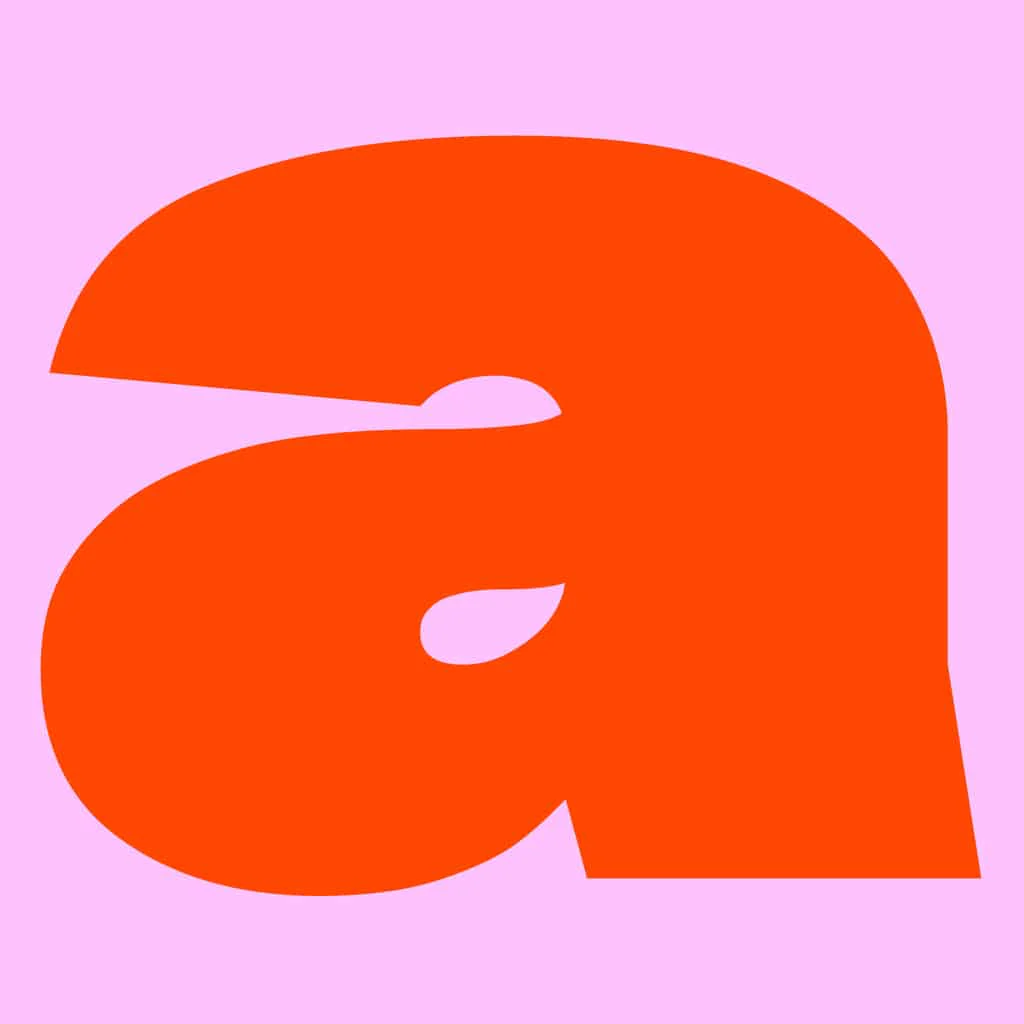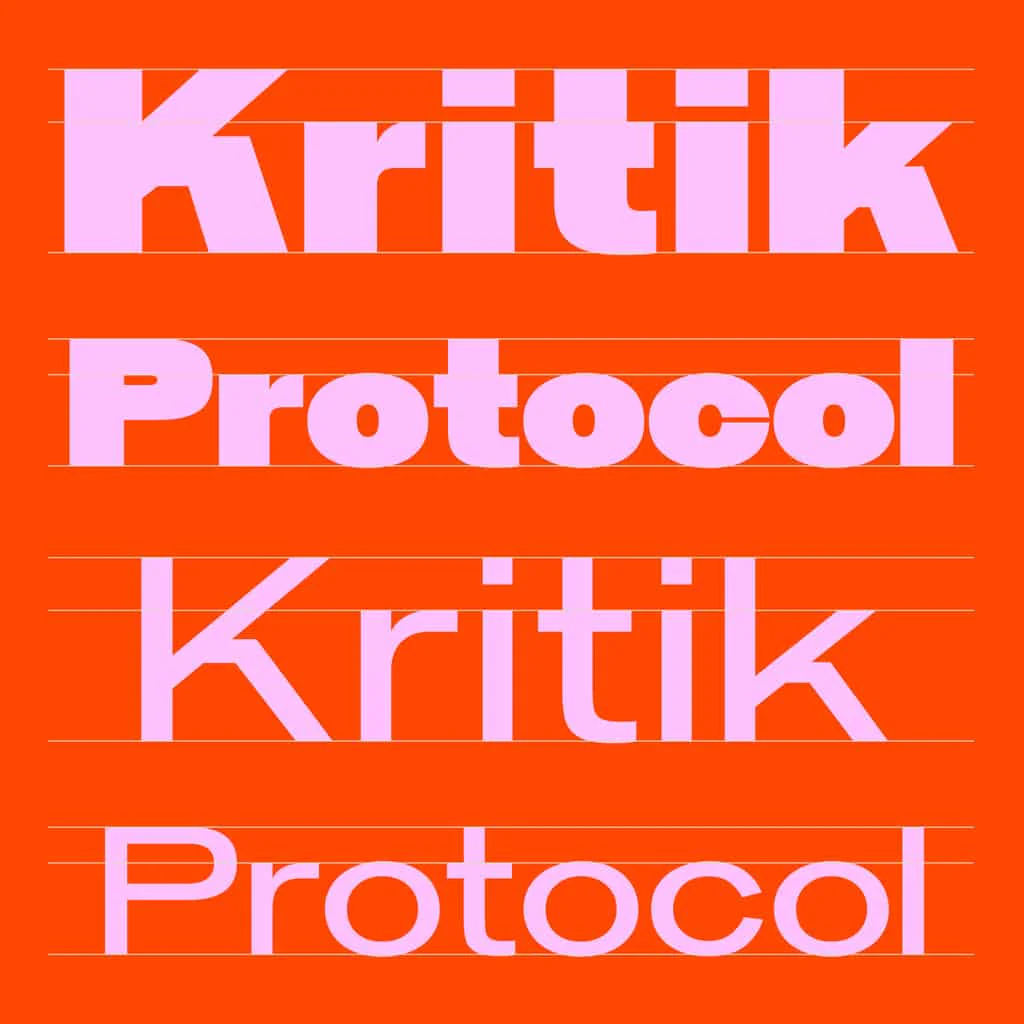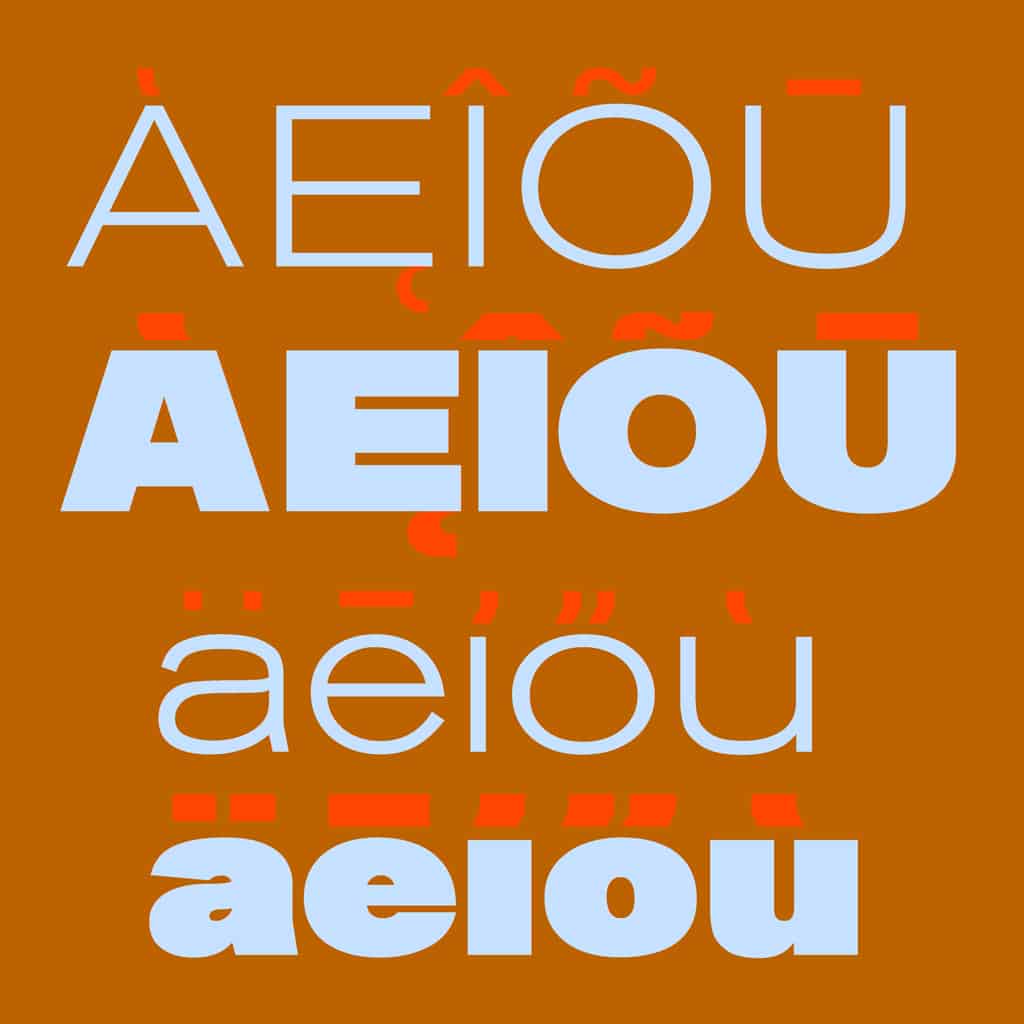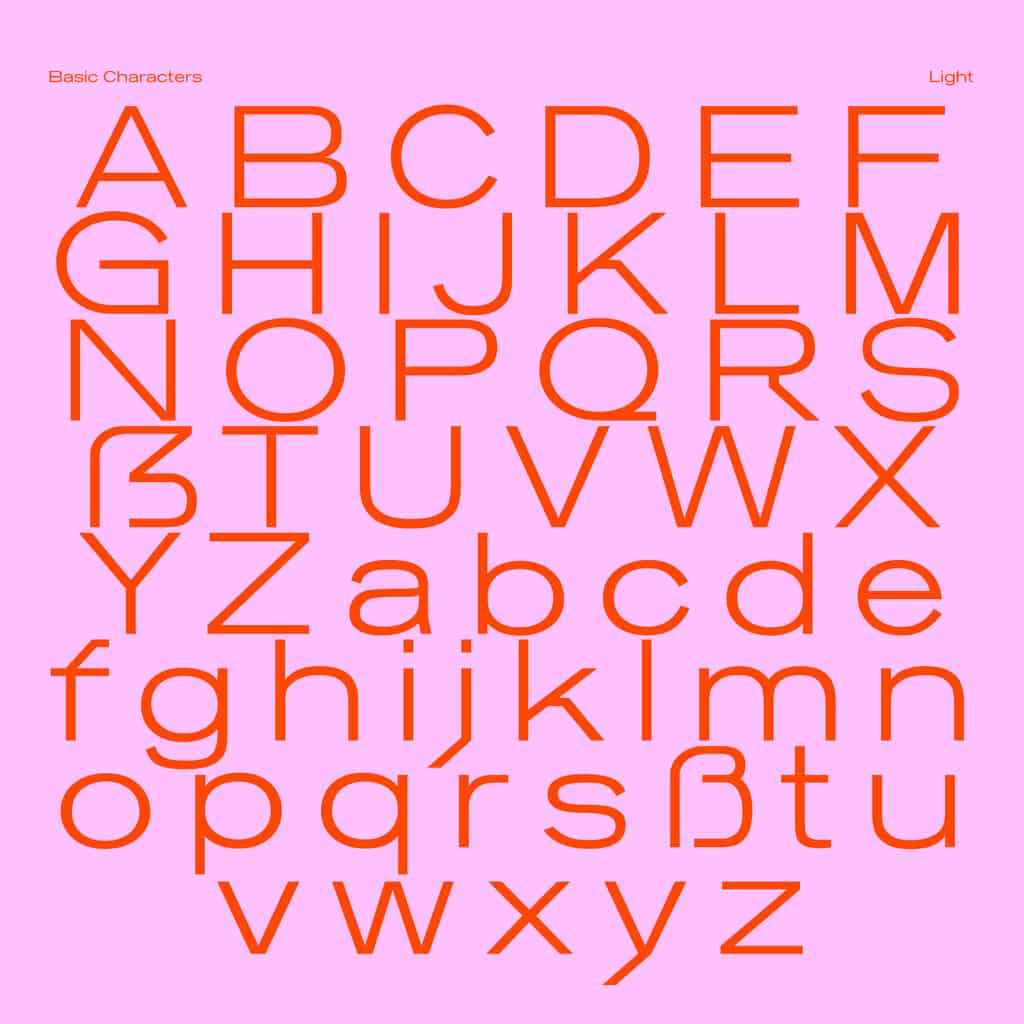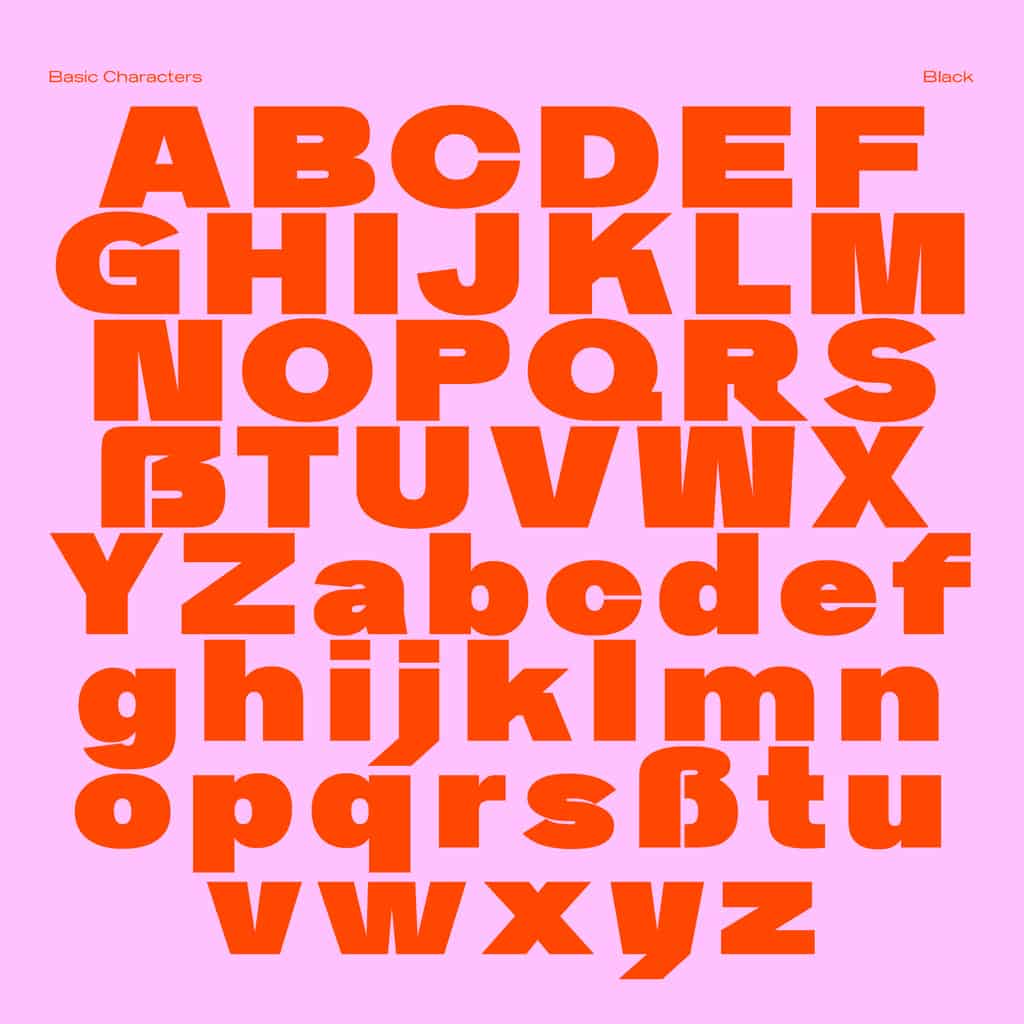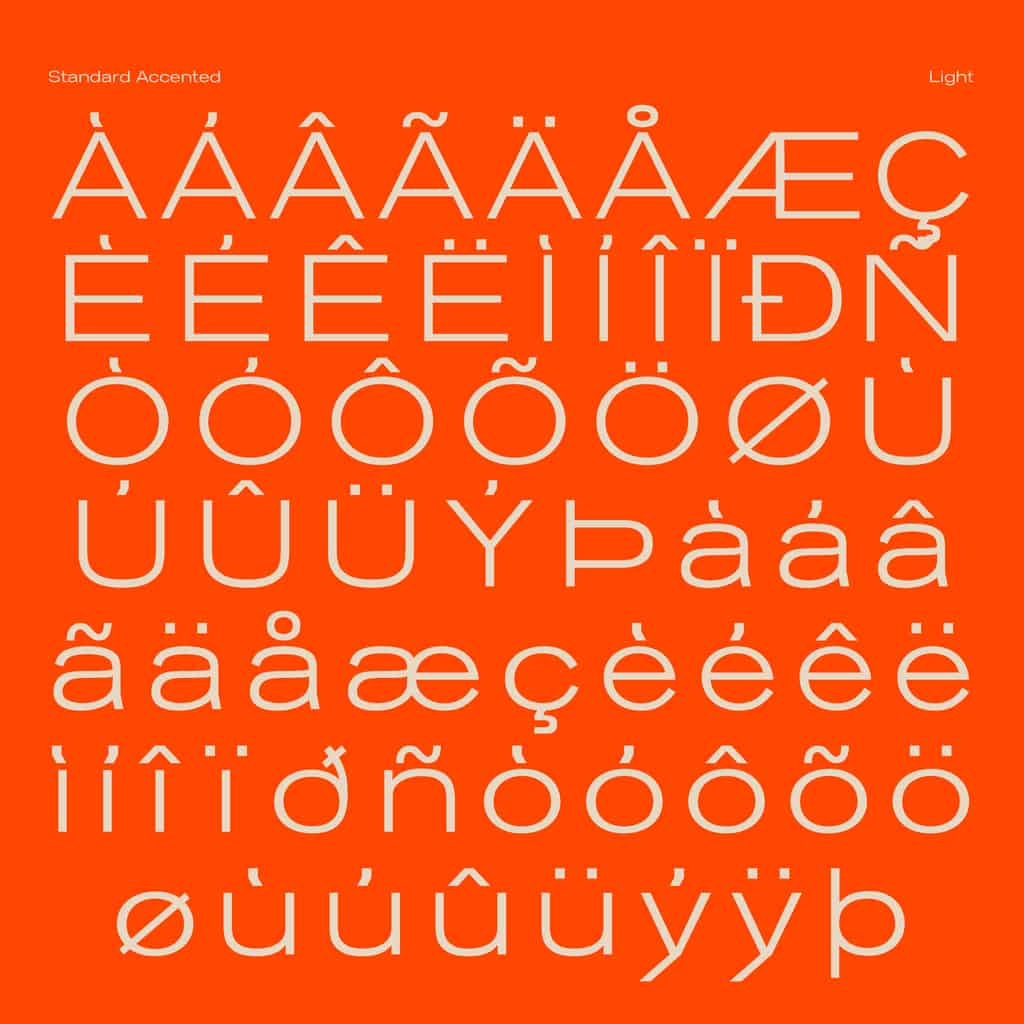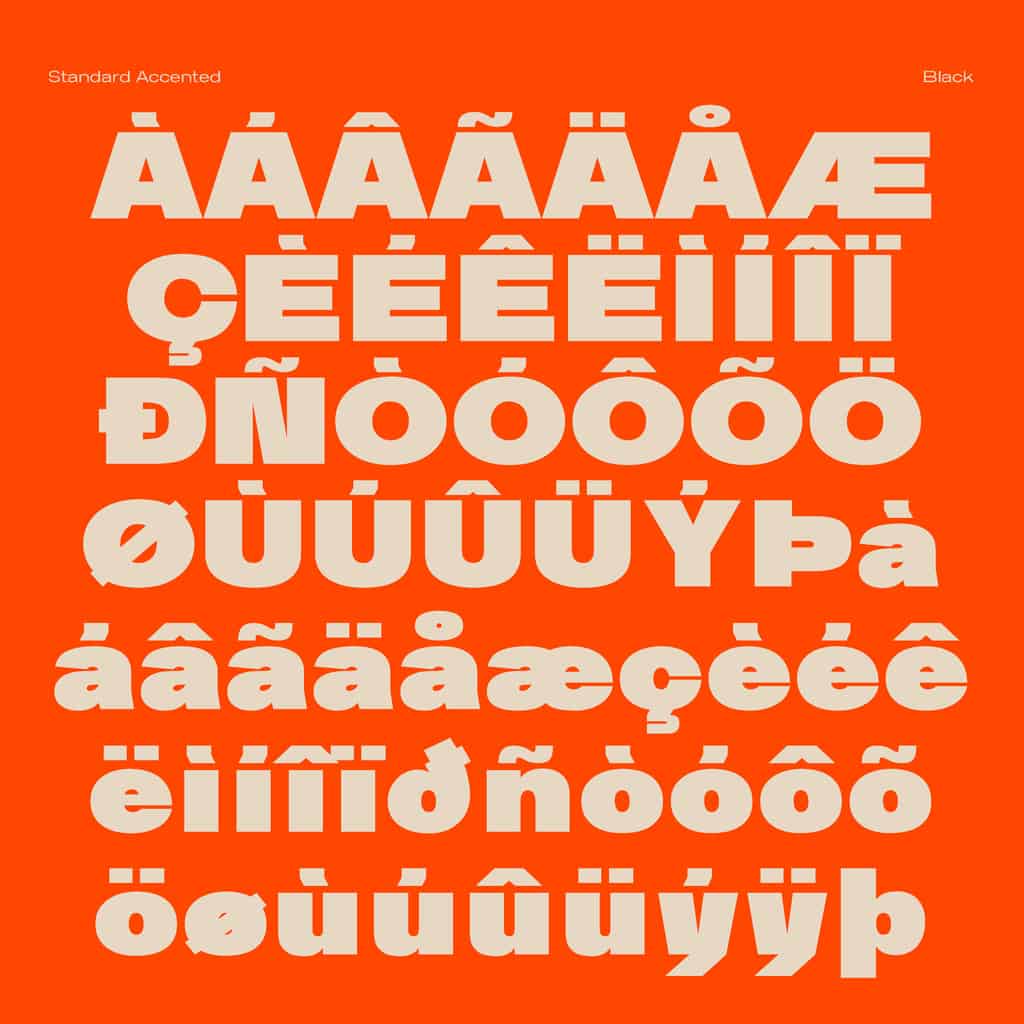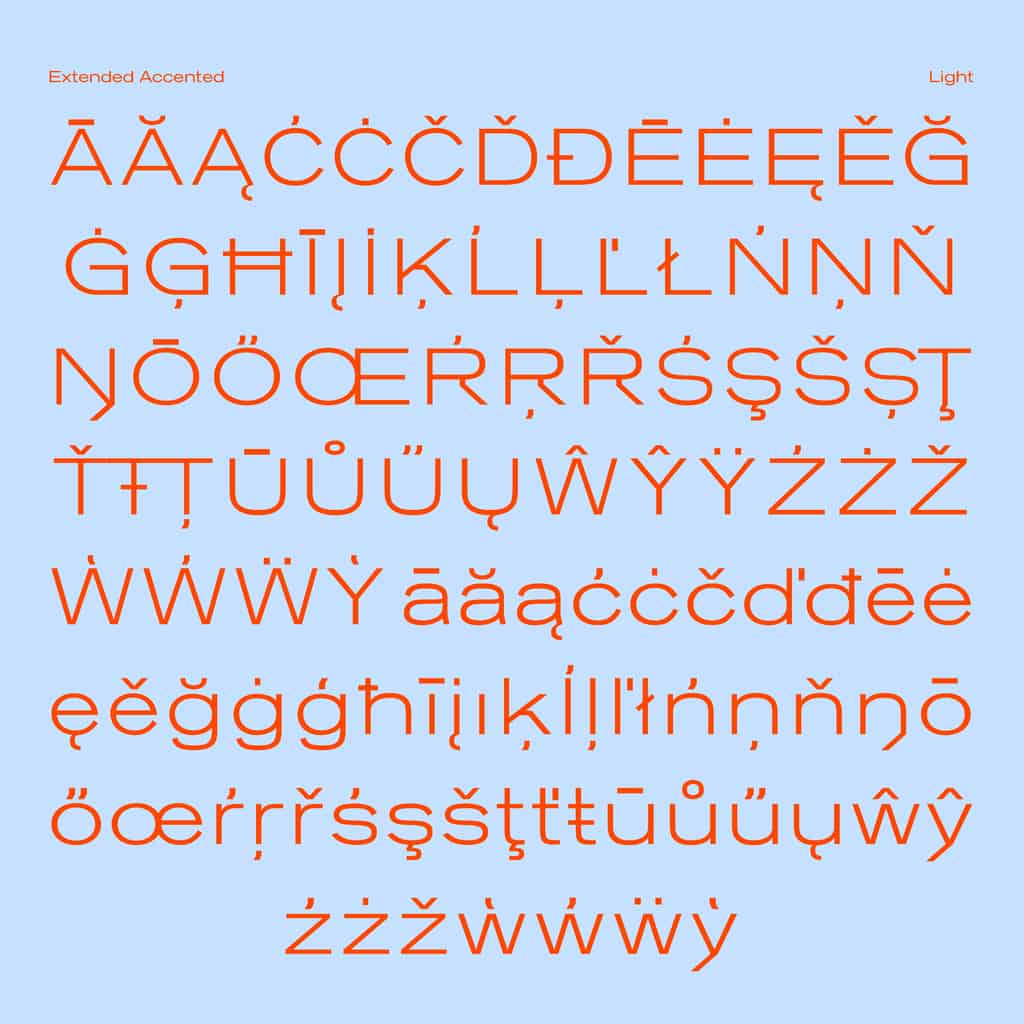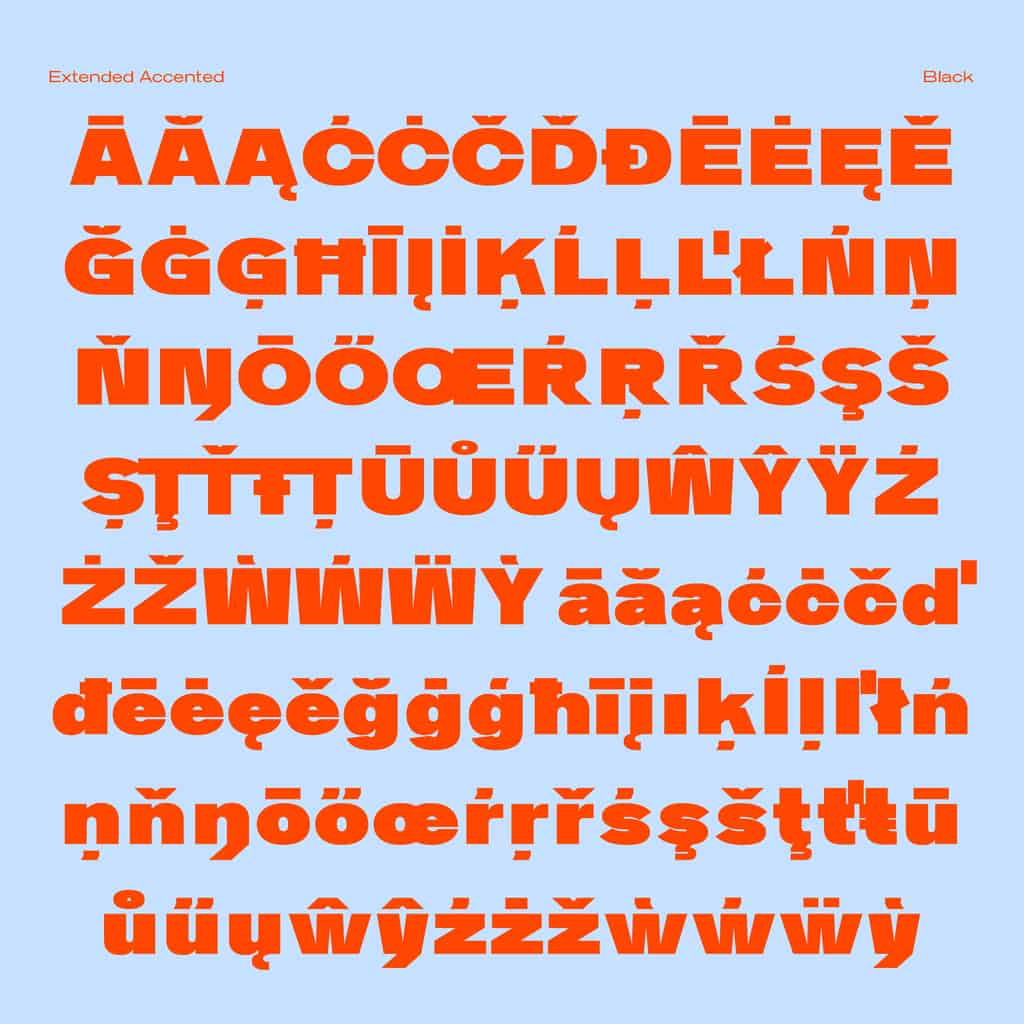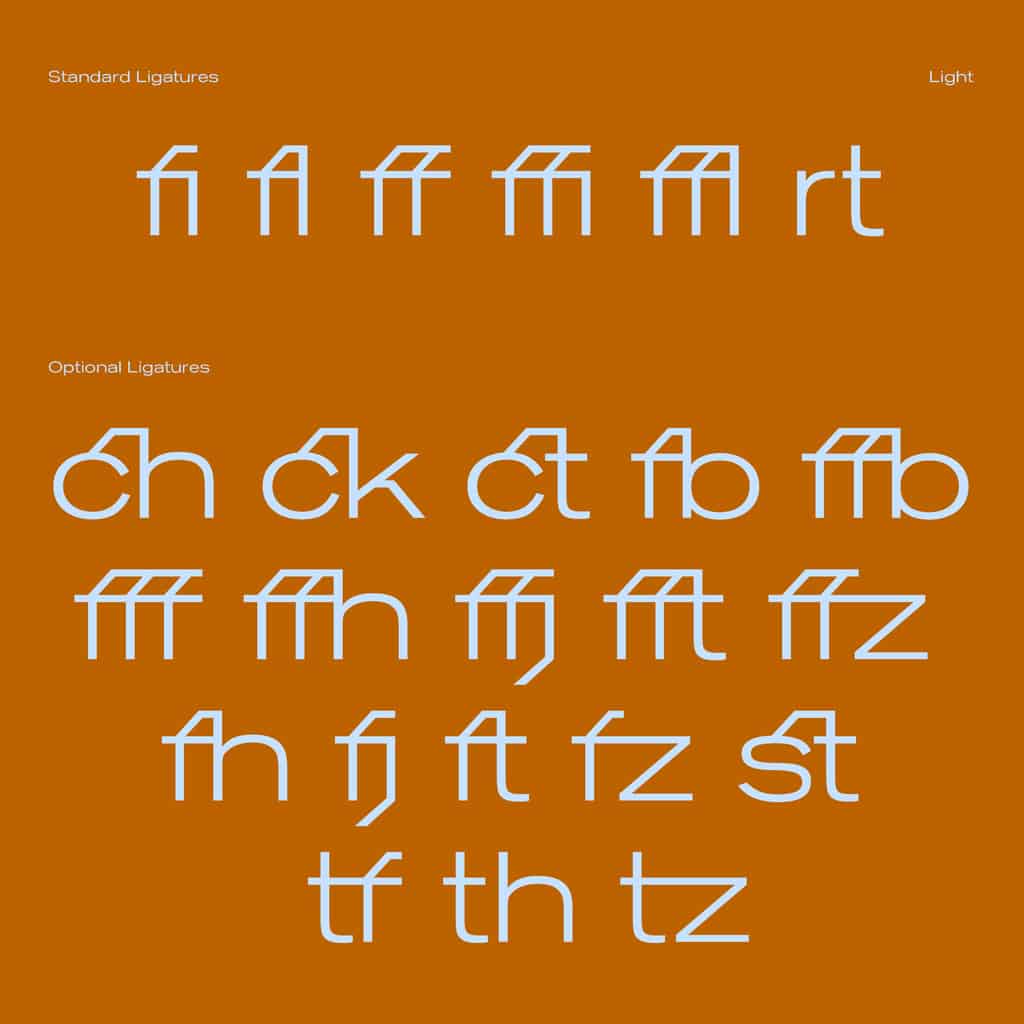
Kritik
Originally conceived for an architecture magazine, Kritik has evolved into a versatile typeface that embodies the intersection of sharp critique and constructive dialogue. The design juxtaposes angular characters with rounded, soft forms, mirroring the process of enhancing an existing structure—much like adding elements to a scaffold in architectural construction.
Derived from the German word “Kritik,” meaning criticism, this typeface captures the dual nature of critique: sometimes harsh and destructive, yet also constructive and refined. In Kritik, these contrasting elements converge to form a cohesive type family featuring 7 weights: Light, Regular, Medium, SemiBold, Bold, ExtraBold, and Black.
Each weight of Kritik is meticulously crafted to maintain readability and visual impact across various applications. Whether used in editorial design, branding, or architectural publications, Kritik stands out for its ability to convey both precision and expressive depth.